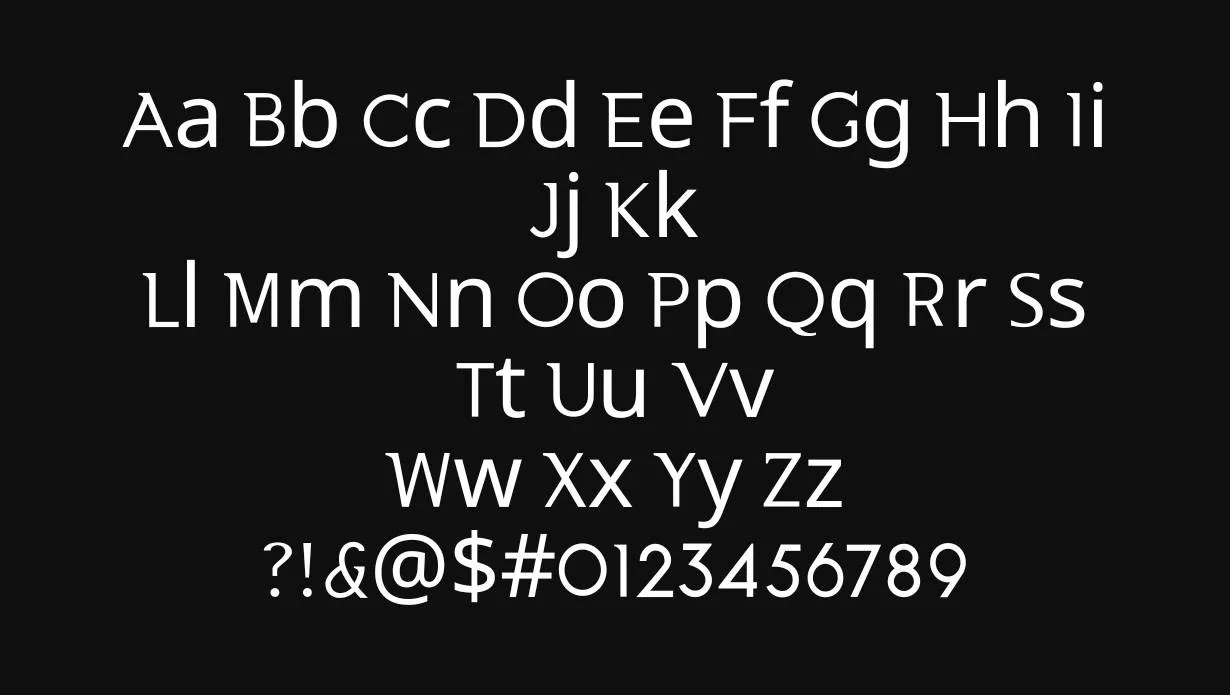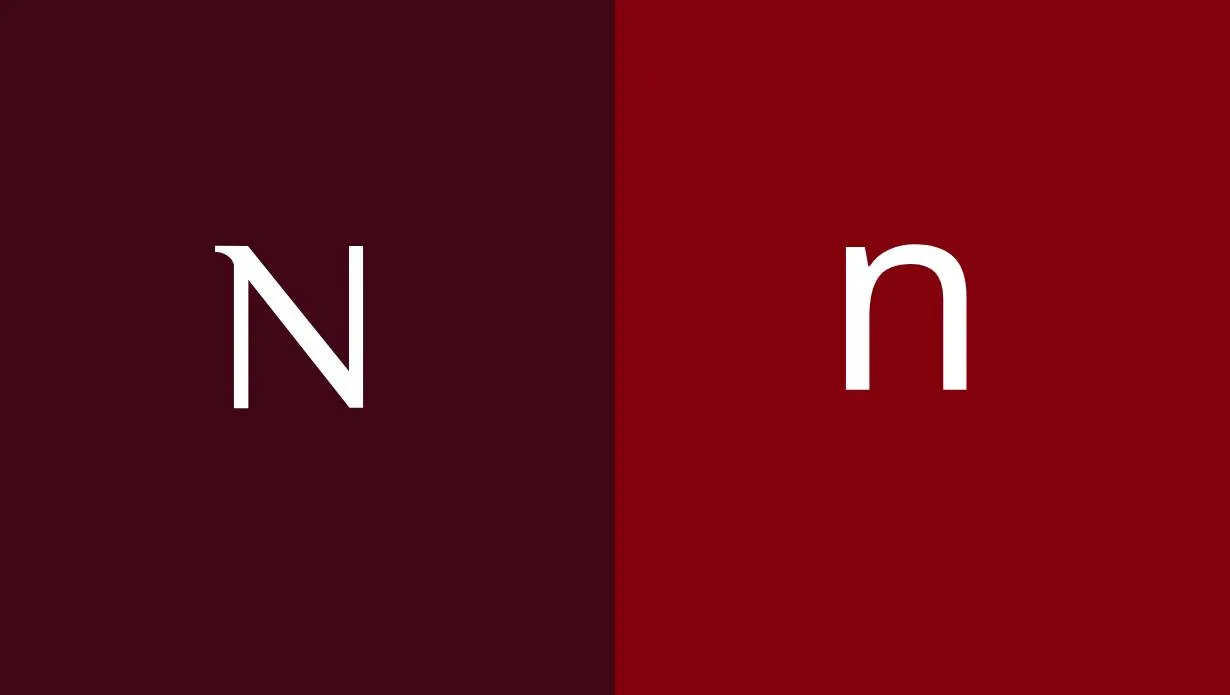
Nooa is a unique serif font that was designed by Antoine Pilette in 2013. The look of this font is very clear and the style is best for making logos. It has a capitalized look which makes your projects look more attractive and amazing.
The weight of this font is light and its width is medium(normal). It has a very sharp look with high readability. You can make many attractive backgrounds by using this font such as headings, logos, titles, posters, banners, flyers, and for other advertisement purposes.
| Name | Nooa Font |
| Designer | Antoine Pilette |